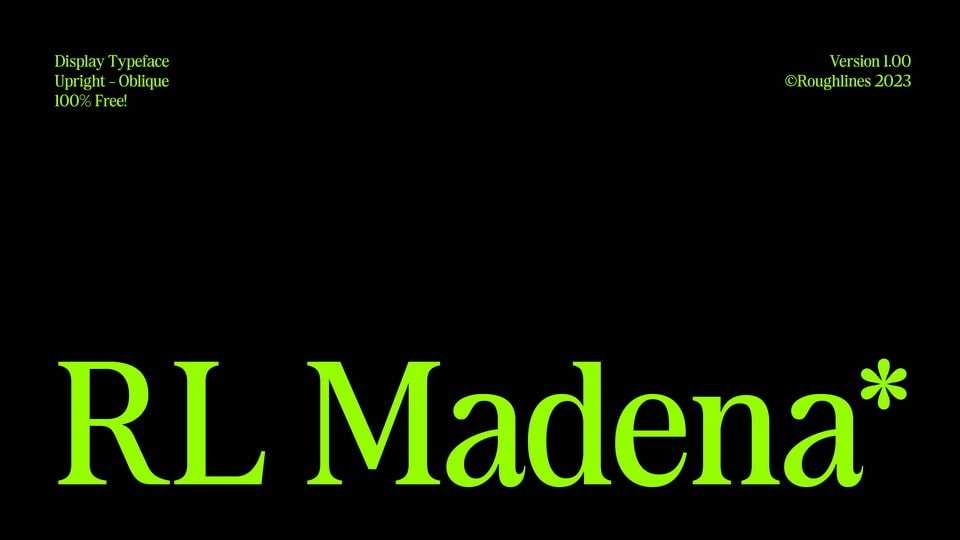
Download RL Madena font, a typeface pays homage to the serifs of the 70s to 90s, evoking a sense of nostalgia that’s sure to captivate your audience. Drawing inspiration from the classics, RL Madena brings a touch of vintage sophistication to your designs, while adding a contemporary twist that makes it truly one-of-a-kind.
Designer: Roughlines Type